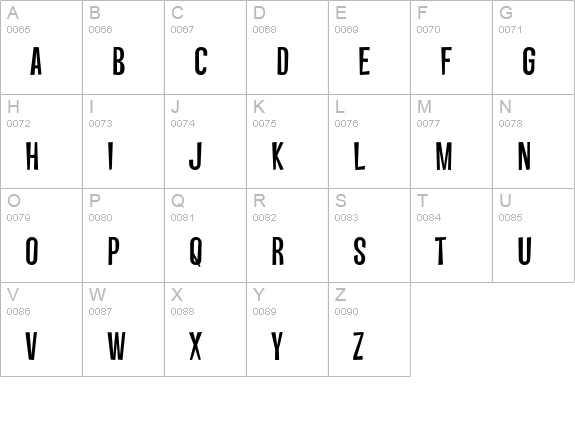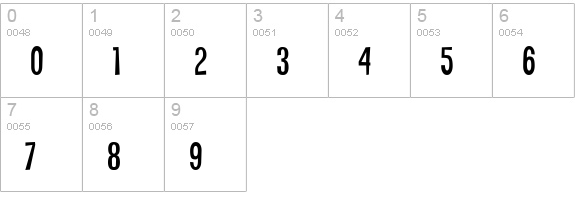
Vanishing Boy BTN Font Details
Introducing the mesmerizing Vanishing Boy BTN font, a true masterpiece in the world of typography. This font is a perfect blend of modern elegance and timeless charm, making it the ideal choice for any creative project. With its sleek and sophisticated design, Vanishing Boy BTN effortlessly captures attention and leaves a lasting impression. Its clean lines and unique letterforms create a sense of movement and dynamism, making every word come alive on the page. But what sets Vanishing Boy BTN apart is not just its stunning aesthetics, but also its accessibility. This font is freely available to download at FontsMarket.com, allowing designers, artists, and enthusiasts from all walks of life to incorporate its beauty into their work. Whether you're designing a logo, crafting a brand identity, or adding a touch of elegance to your personal projects, Vanishing Boy BTN is the perfect choice. Its versatility and timeless appeal make it suitable for a wide range of applications, ensuring that your message will be conveyed with style and grace. Don't miss out on the opportunity to enhance your designs with the captivating Vanishing Boy BTN font. Download it for free today at FontsMarket.com and experience the power of this extraordinary typeface. Let your creativity soar and make a lasting impression with Vanishing Boy BTN.